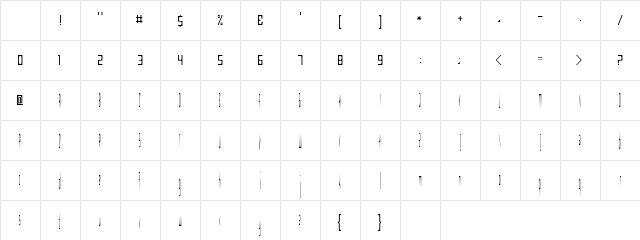
Complete Geek Skinny glyph index. Displaying only characters natively supported by Geek Skinny font.
Geek is a composed and adaptable typeface that performs quietly and consistently across a wide range of design contexts.